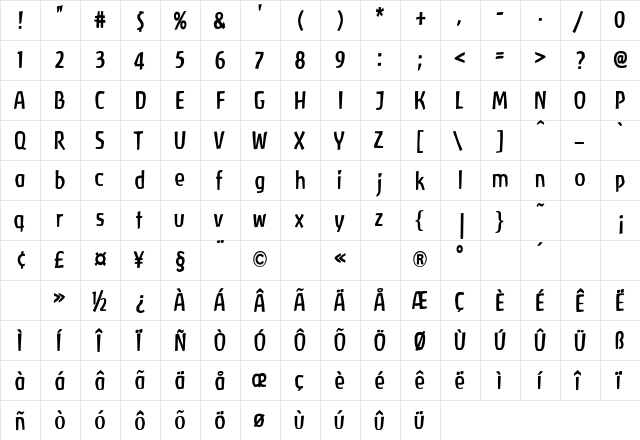
Baar Antropos Engschrift Regular
Design Context for Baar Antropos Engschrift Typeface
Baar Antropos Engschrift takes a measured approach to typography — its balanced proportions and neutral character make it a reliable workhorse for both digital and print work.